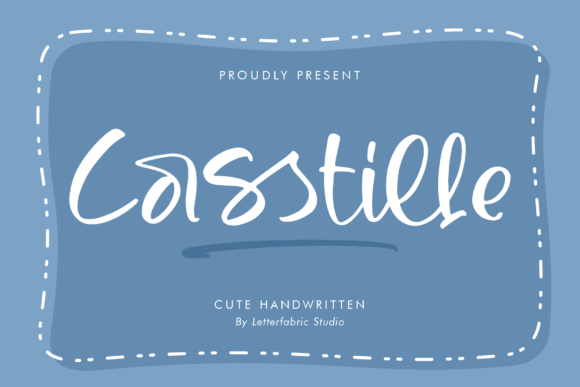
The Joy of Handwritten Fonts: Discovering Casstille
Have you ever been brainstorming a creative project, staring at a blank page or screen, and suddenly a spark of inspiration hits? That’s exactly what happened when I stumbled upon the adorable Casstille Font – a cute and playful handwritten font that instantly captured my heart.
As a designer, I’m always on the lookout for fonts that add a personal touch to my projects. That’s where Casstille Font comes in – a versatile and charming font perfect for creating stunning graphic designs, from logos and branding to product packaging and quotes.
Adding the Casstille Font to your collection can breathe new life into your designs, making them stand out from the crowd. Its unique charm and playfulness make it a valuable asset for designers, and I’m excited to share its possibilities with you.
- Unique Characteristics: Includes a wide range of ligatures, swashes, and flourishes, making it suitable for various design applications
Casstille Font Review
At first glance, I was drawn to the unique, elegant design of the Casstille font. ✨ The subtle curves and rounded edges give it a sophisticated feel that’s perfect for luxury brands, fashion, or high-end design projects. The font is also highly customizable, allowing you to adjust the weight, spacing, and other parameters to suit your specific needs.
Here are some of the things that work well in the Casstille font:
- ✨ Unique, elegant design that’s perfect for luxury brands
- ✨ Highly customizable with adjustable weight, spacing, and other parameters
- ✨ Suitable for a wide range of design projects, from fashion to high-end branding
- ⚠️ May not be suitable for casual or informal design projects due to its elegant and sophisticated feel
- ⚠️ Can be difficult to read at small font sizes due to its complex design
Overall, I’d say the Casstille font is a solid choice for designers who are looking for a high-end, luxurious feel. While it may not be suitable for every project, it’s a great option for those who want to make a statement with their design.
Getting the Most Out of Casstille Font
Casstille Font is suitable for a variety of designs, including posters, flyers, social media graphics, and more. It’s particularly effective for headings and titles due to its elegant and modern look.